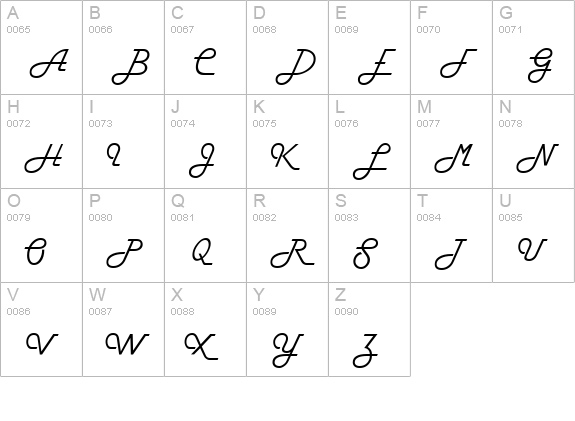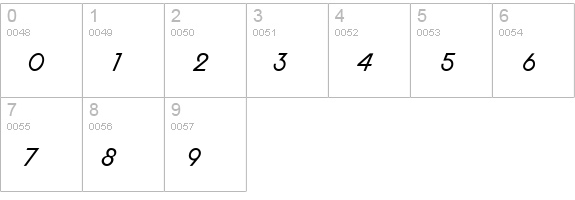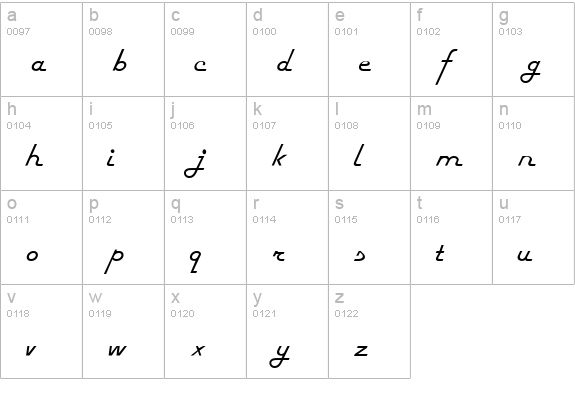
Fifties Font Details
Fifties font is a delightful throwback to the iconic typography of the 1950s, characterized by its bold lines, sleek curves, and vintage flair. This retro typeface exudes a sense of nostalgia and charm, making it perfect for adding a touch of old-school style to any design project. Whether you're creating posters, invitations, logos, or branding materials, Fifties font will bring a touch of classic elegance to your work. The best part? Fifties font is completely free to download at FontsMarket.com. Simply head over to the website and grab this timeless typeface to elevate your designs with a touch of 1950s sophistication. Don't miss out on this opportunity to add a touch of retro charm to your projects – download Fifties font today and let your creativity soar!